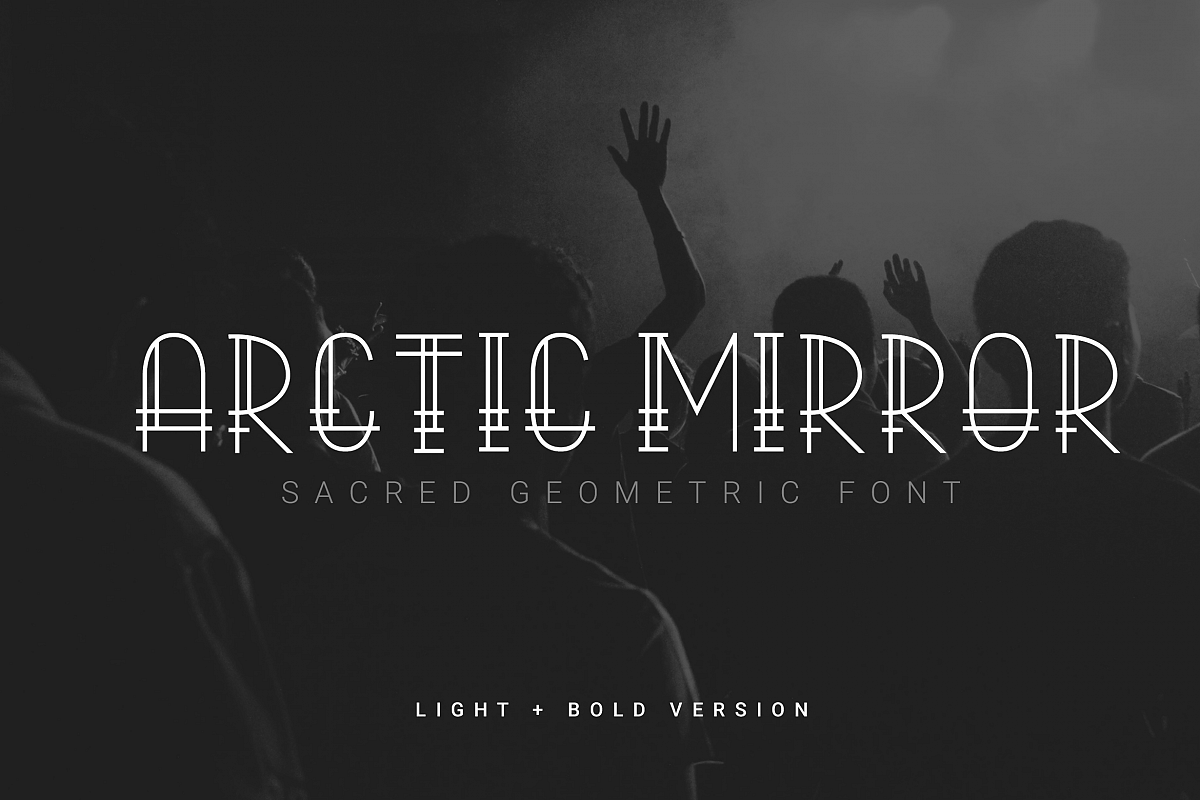
Arctic Mirror - Sacred Font
Create a Extraordinary Typography / lettering results by using Arctic Mirror - Sacred Font. Best match for logos, header, Titles, Prints & other Creative process possibilities.